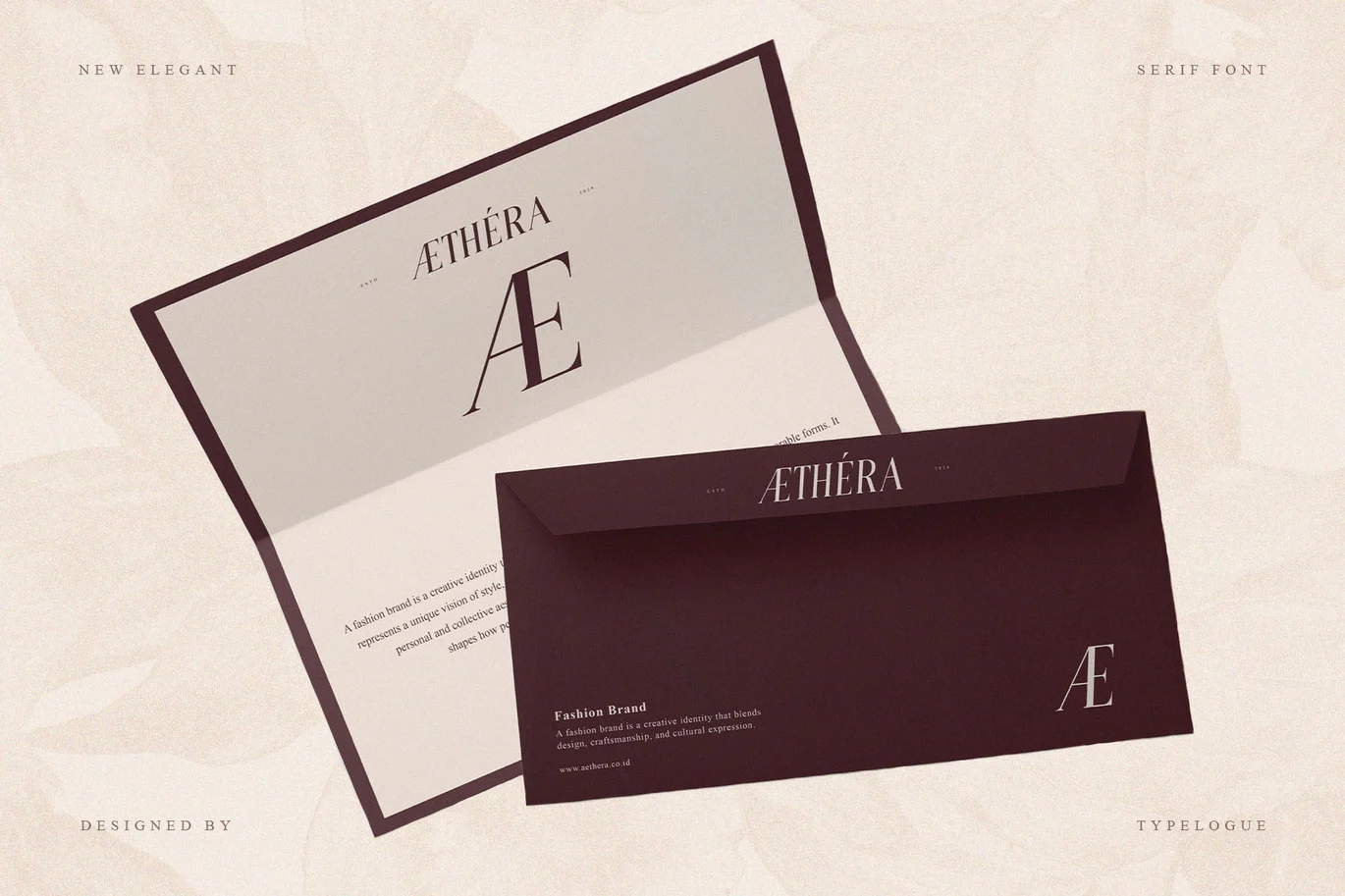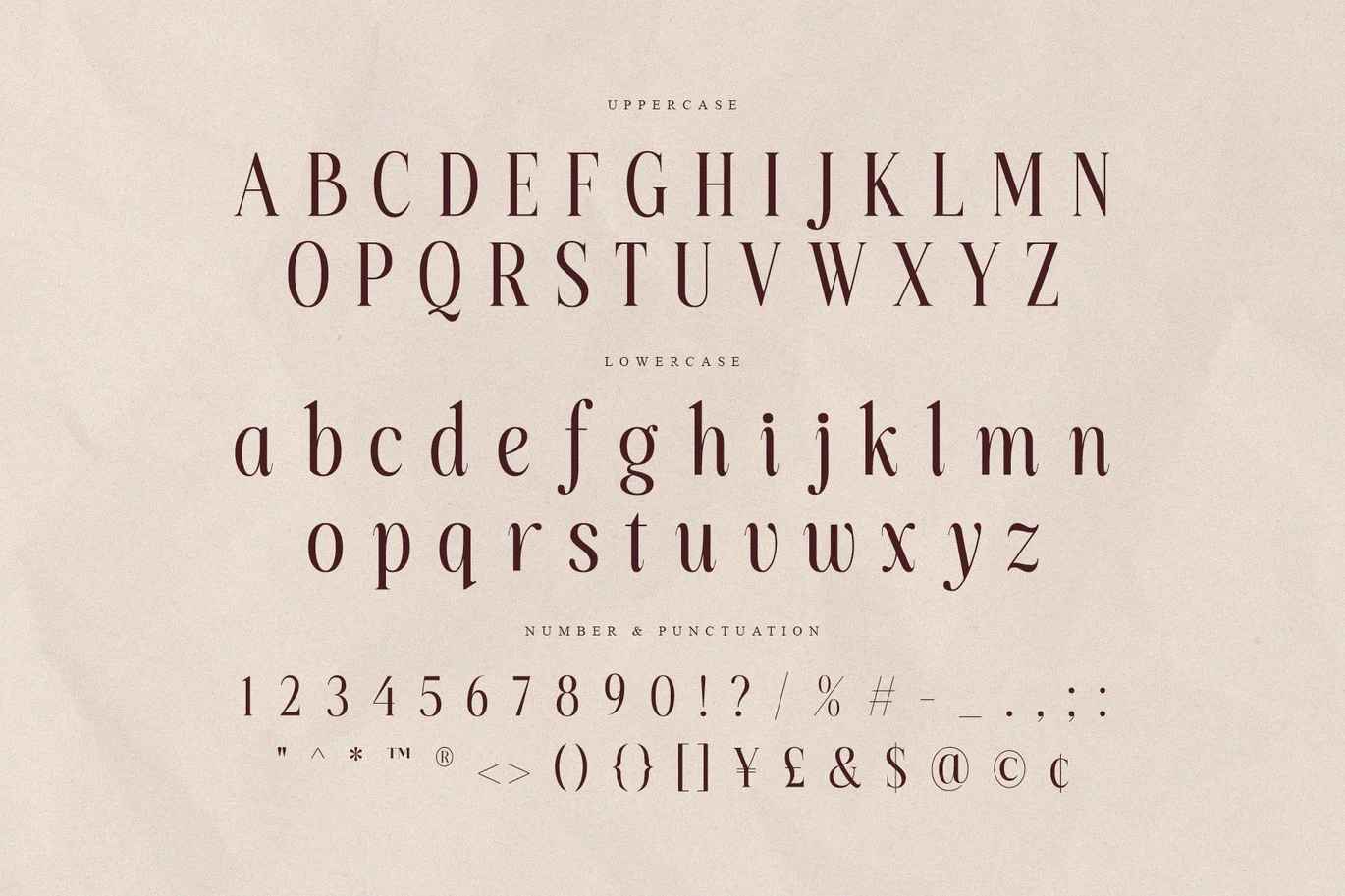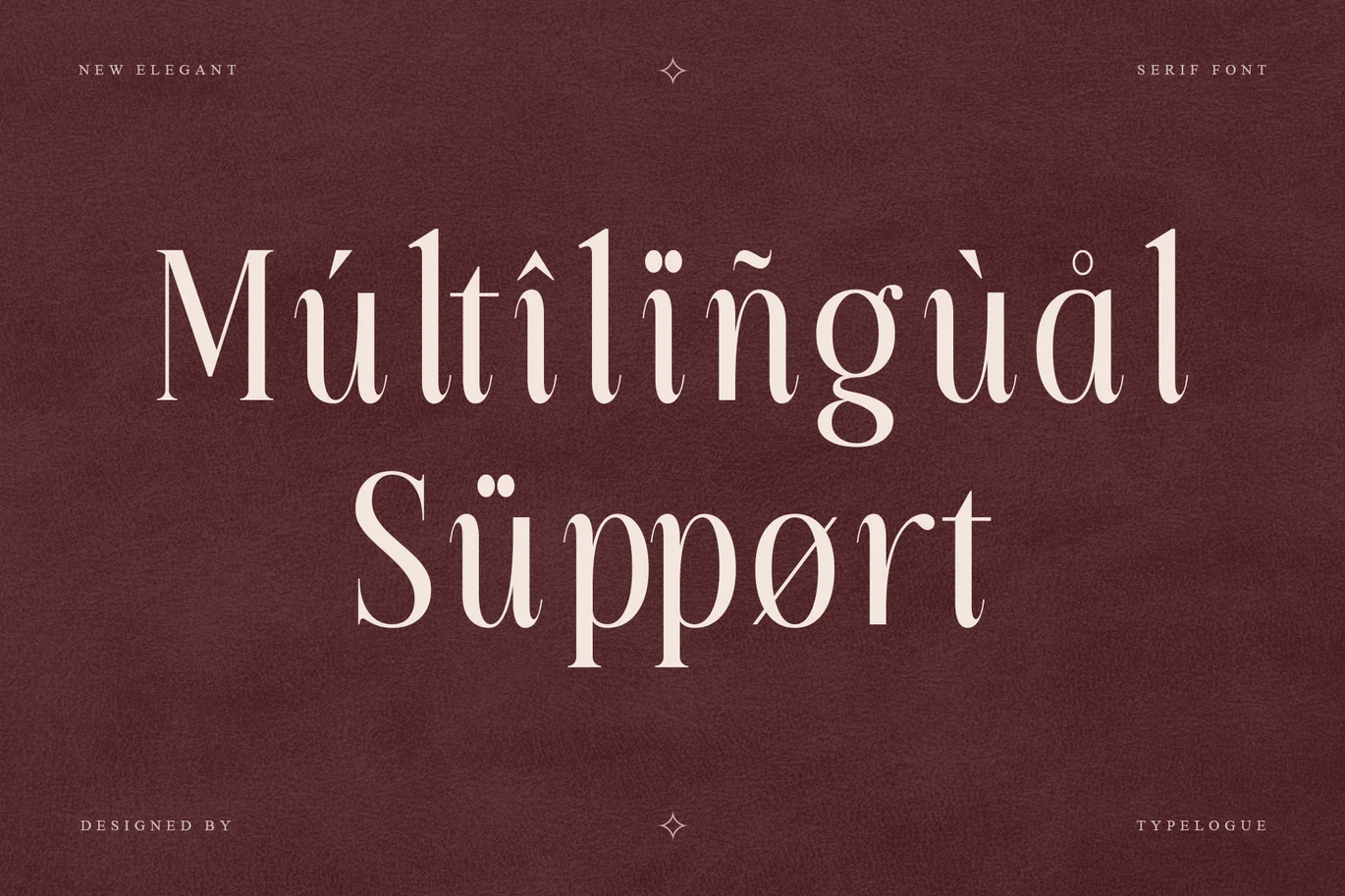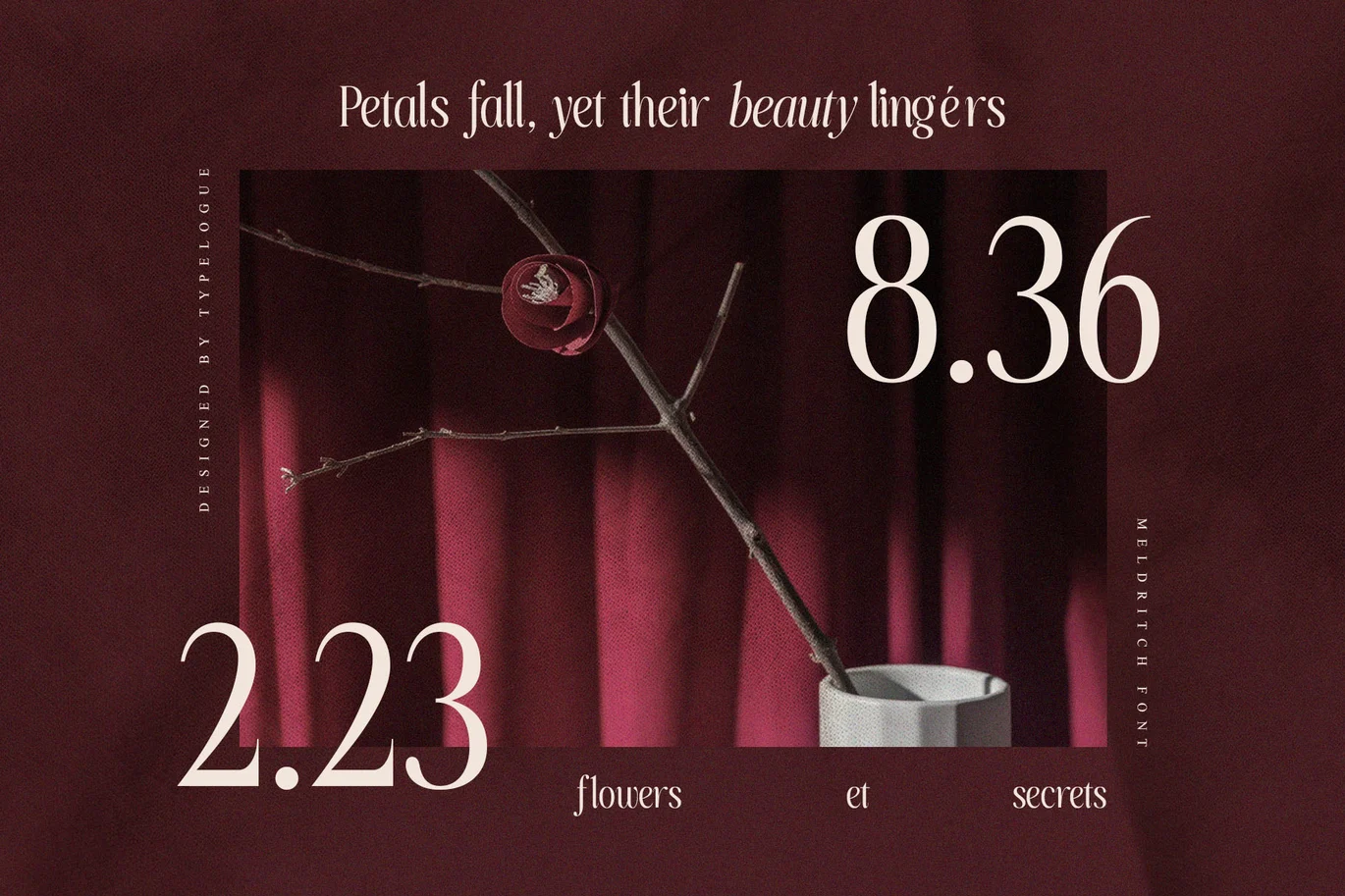
Meldritch – Stylish Serif Display Font
Meldritch is an elegant serif display font with dramatic high contrast, refined curves, and a distinctly luxurious presence.
Its tall proportions and sharp editorial character make it an excellent choice for fashion branding, beauty packaging, magazine headlines, premium logos, wedding stationery, and cinematic title design.
Designed to stand out in both print and digital layouts, Meldritch delivers a sophisticated visual voice that feels timeless, graceful, and confidently modern.
It is ideal for designers who want a premium serif font that brings class, clarity, and strong brand impact to every headline.